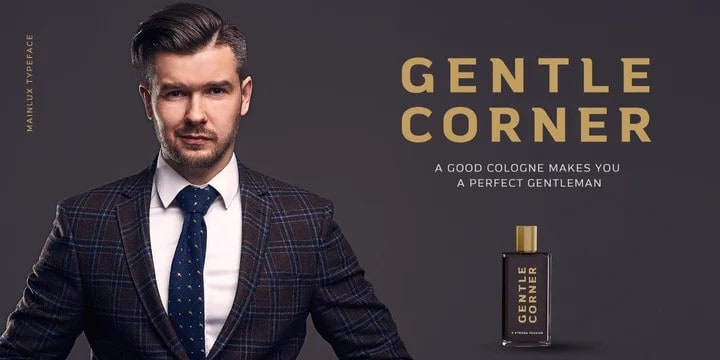
Mainlux Sans Serif Font
Mainlux Sans Serif Font is a simple sans serif typeface emphasize for inviting, readibility and versatile. planting it firmly in modern day design but removing serif and little bit thin. Made from font designer named Digitype Studio. It’s an elegant typeface family with a unique touch to each character.It comes in 12 weights, 6 straights & italics.
Mainlux Sans Serif Font was designed to give a luxurious impression to your artwork, products, web business cards and various other needs. Each weight includes extended language support and standard ligature.